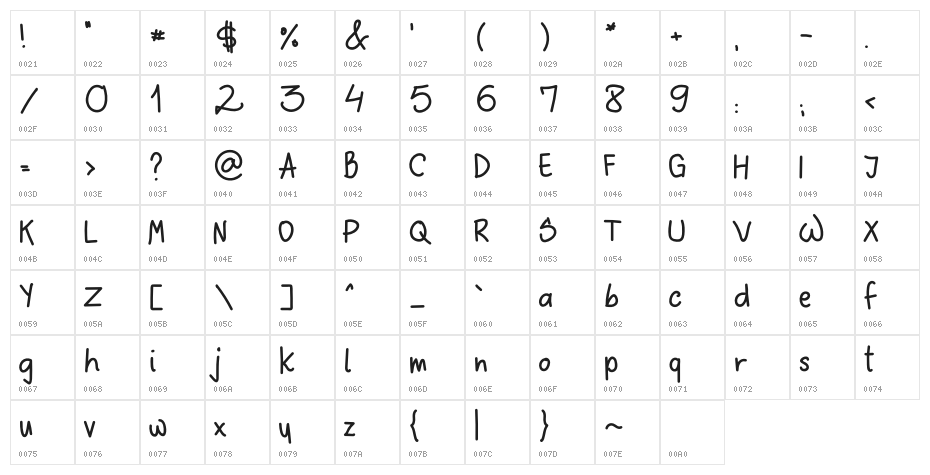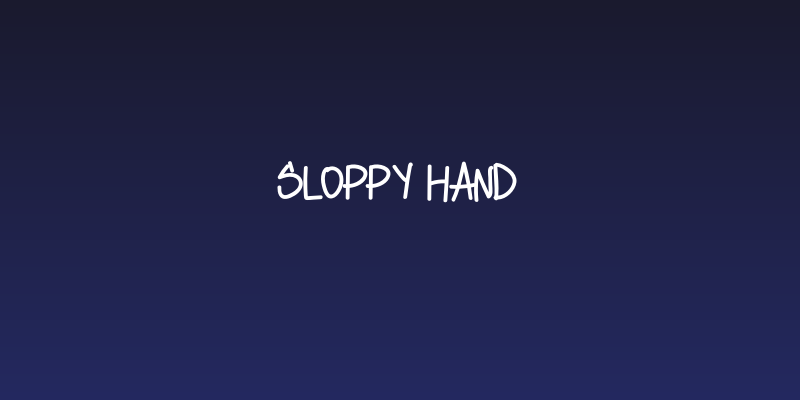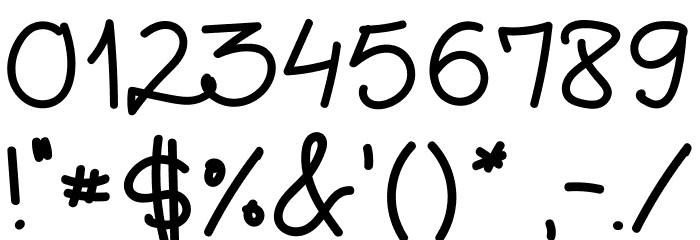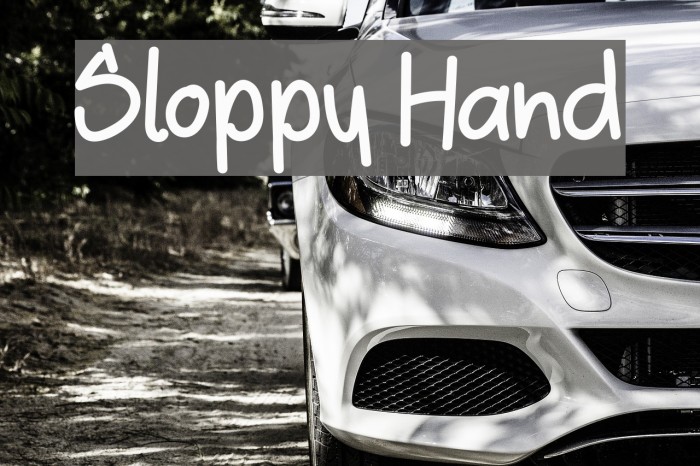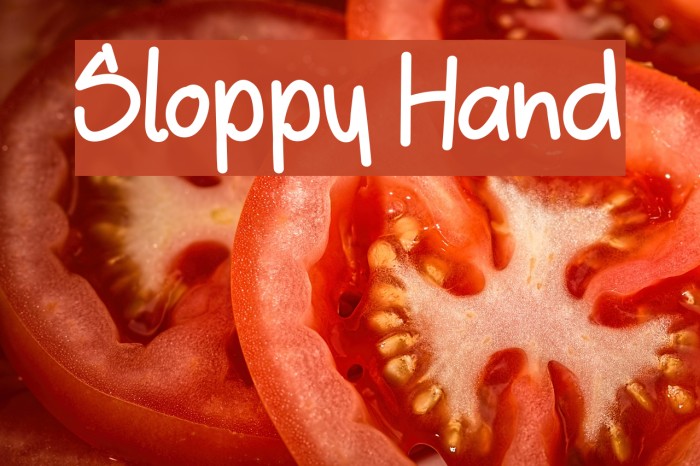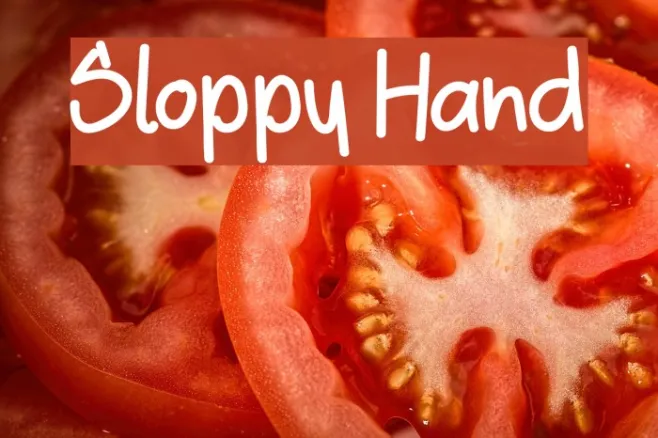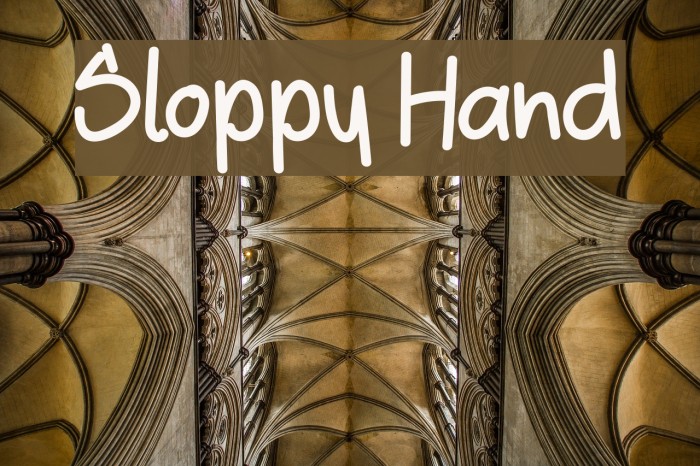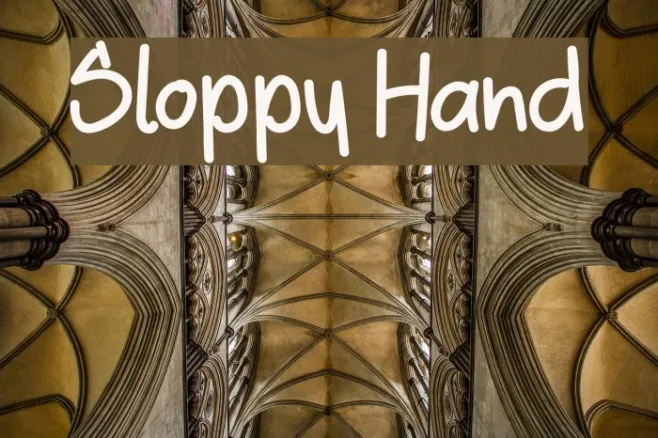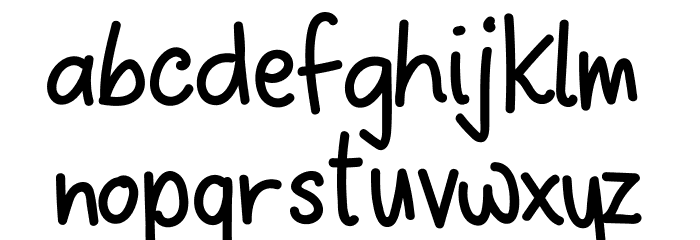
Sloppy Hand Font
Sloppy Hand Description
This font exudes a playful and casual vibe, characterized by its handwritten style that mimics a natural, free-flowing script. The letters are slightly irregular, adding to its charm and authenticity. It features rounded edges and a consistent stroke width, giving it a friendly and approachable appearance. The characters are well-spaced, ensuring readability while maintaining a relaxed aesthetic. This font is perfect for projects that require a personal touch, such as greeting cards, invitations, or informal branding materials.
| Proposed Projects | Ideal for greeting cards, invitations, children's books, and informal branding. |